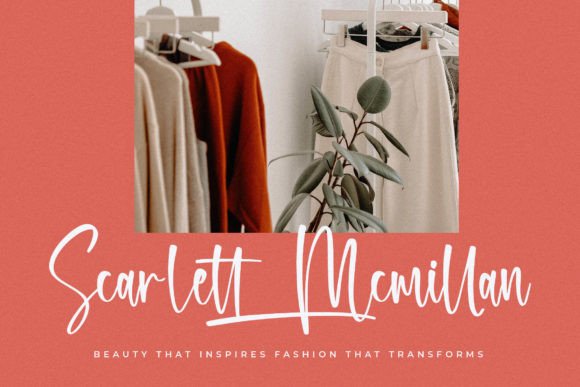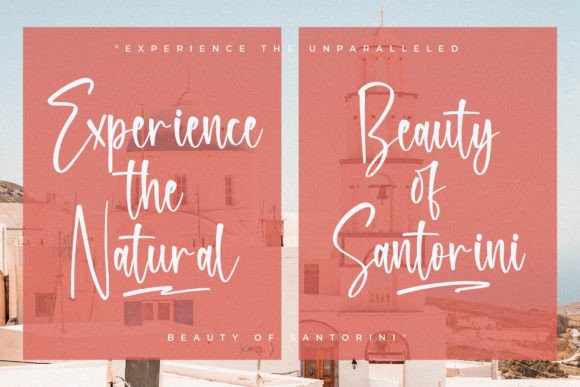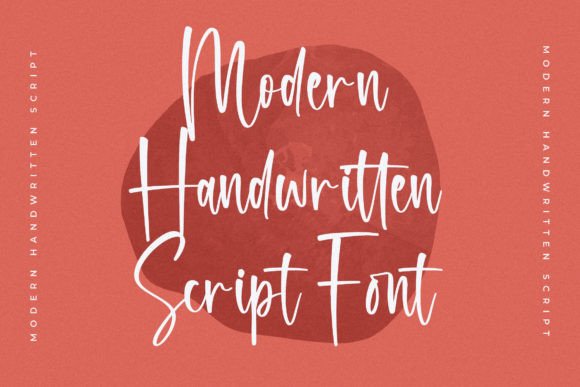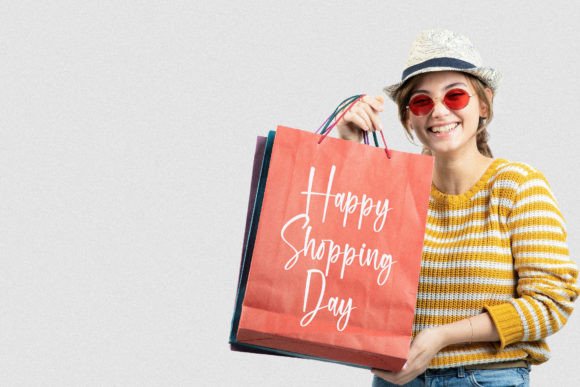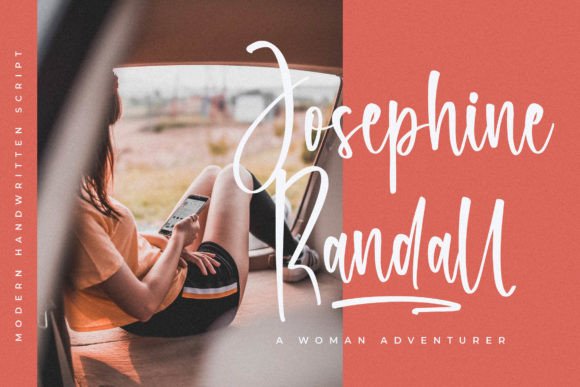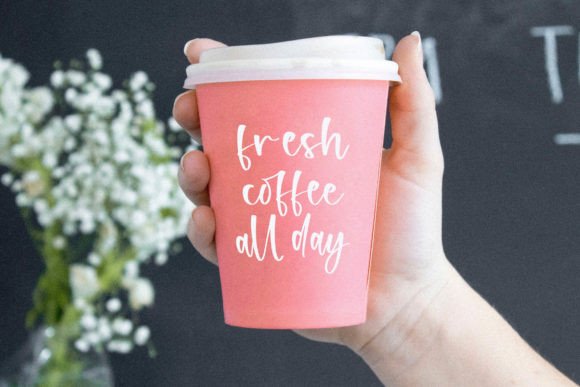
Introduction to Sharon Daisy Font
Sharon Daisy – Modern Handwritten Script suitable for any projects such as logos, branding projects, homeware designs, product packaging, mugs, quotes, posters, shopping bags, t-shirts, book covers, name cards, invitation cards, greeting cards, labels, photography, watermark, special events, and all your other lovely projects that need a beautiful script taste.
Key Features of Sharon Daisy Font
Why Choose Sharon Daisy Font?
Sharon Daisy Font offers exceptional quality and versatility, making it a valuable addition to your design toolkit. Whether you’re creating for personal projects or commercial use, Sharon Daisy Font delivers professional results.